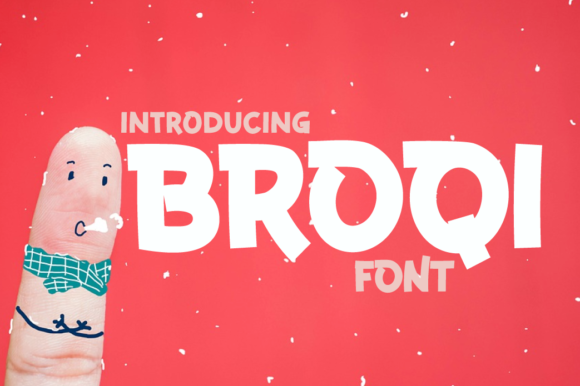
Unleash the playful spirit of Broqi, a display font that captivates with its chunky letters and infectious energy. Crafted by the talented twinletter, Broqi is a visual masterpiece that dances across the screen, embodying playfulness and authenticity like no other. Let your designs come alive with Broqi, the perfect choice for children's activities and school projects. Dive into a world of imagination and creativity, where Broqi's unique charm transforms your words into captivating works of art.
With Broqi, you'll find yourself in a whimsical wonderland where letters leap off the page, exuding personality and vibrancy. Its distinctively chunky design commands attention, while the smooth, rounded edges create an inviting and approachable aesthetic. Broqi is a font that speaks to the child within us all, reminding us of the joy and magic that surrounds us.
Explore the limitless possibilities of Broqi, the ultimate font for Instagram captions. Its bold presence cuts through the digital noise, ensuring your words shine brighter than ever before. From playful quotes to heartfelt messages, Broqi transforms your captions into captivating expressions that resonate with your audience. Let your creativity soar as you craft visually stunning posts that capture hearts and ignite imaginations.
Broqi's versatility knows no bounds. Its playful nature lends itself perfectly to children's activities, bringing a touch of whimsy to coloring pages, worksheets, and invitations. Its bold, chunky letters make it an ideal choice for school projects, where headings and titles demand attention. Broqi breathes life into presentations, posters, and flyers, making your message impossible to ignore.
Embrace the magic of Broqi and watch as your designs take on a life of their own. Its charming personality and playful spirit will leave an unforgettable impression on your audience. Let Broqi be your creative companion, guiding you through a world of imagination and delight. Discover the endless possibilities that await you with Broqi, the font that sparks joy and ignites creativity.